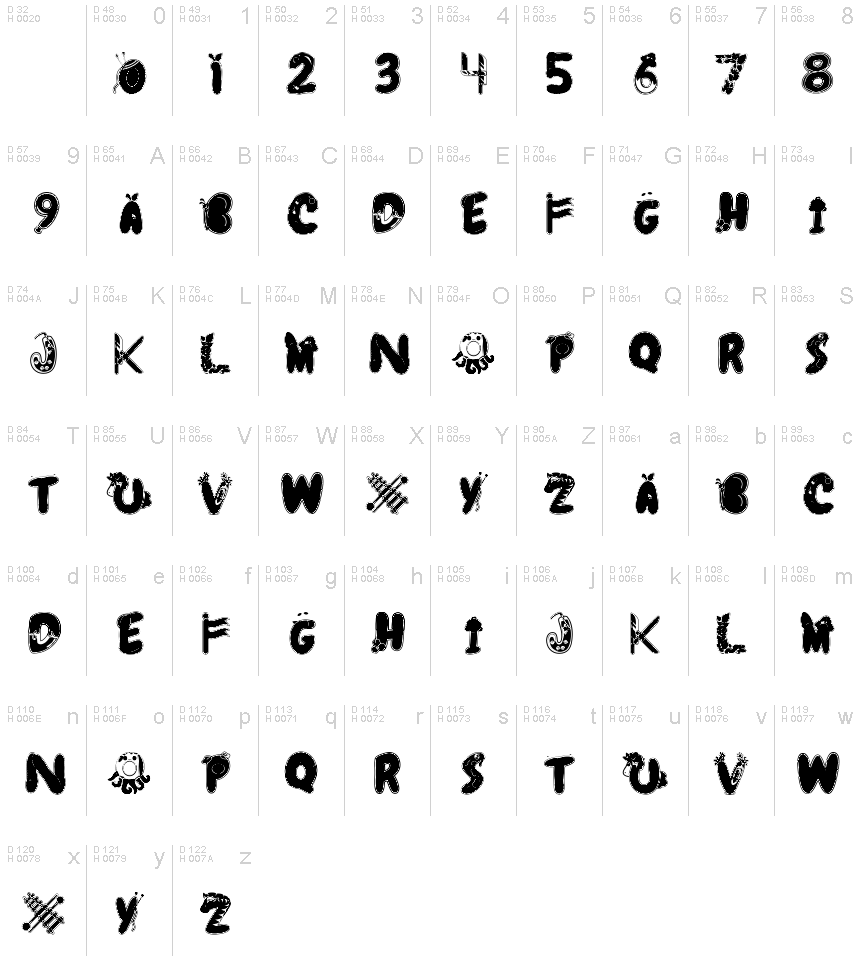
Colorful Decorative Alphabet
The "Colorful Decorative Alphabet" by Kong Font is a bold, captivating display typeface that exudes a sense of playfulness and vibrant energy. With its striking combination of thick strokes and whimsical flourishes, this font commands attention, making it a standout choice for projects that demand a touch of personality and flair.
Crafted with an eye for detail, the Colorful Decorative Alphabet boasts a unique character set that seamlessly blends traditional and modern design elements. Its bold, geometric forms create a strong visual impact, while the delicate, decorative accents lend a touch of sophistication and elegance. This font's versatility shines through its ability to convey a range of moods, from joyful and celebratory to sophisticated and refined.